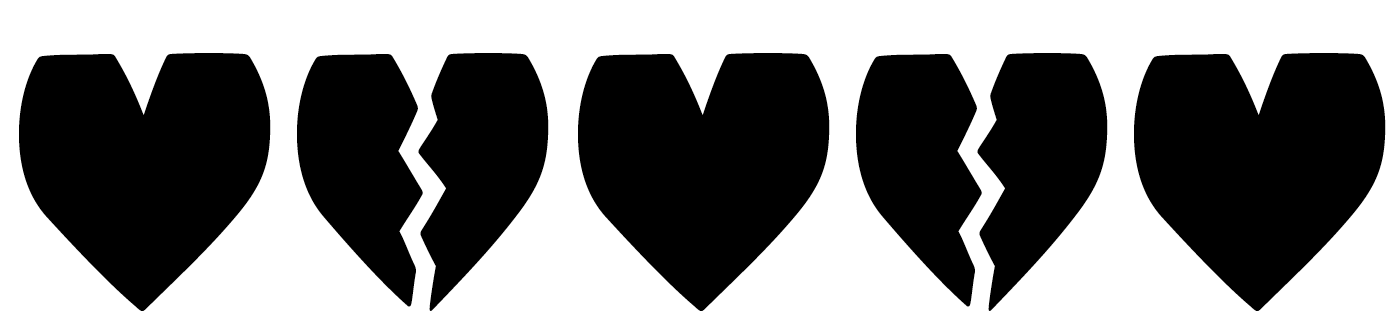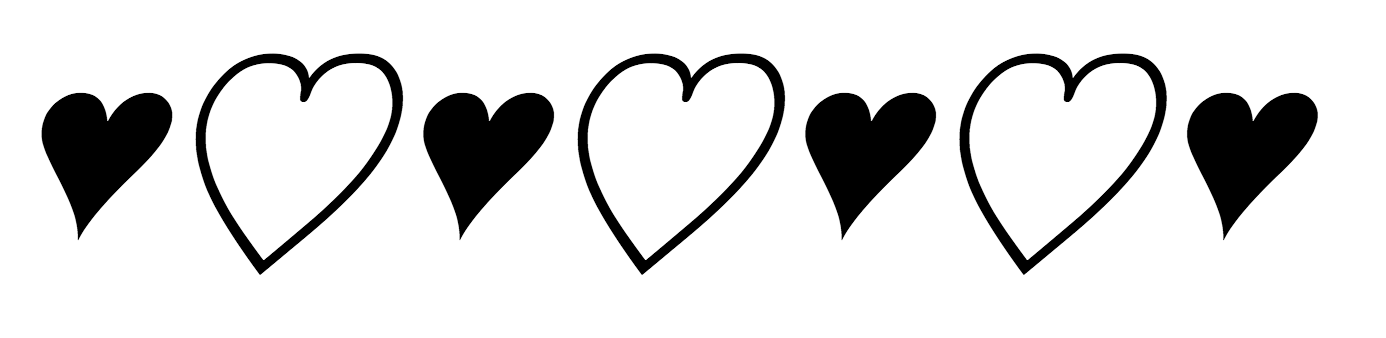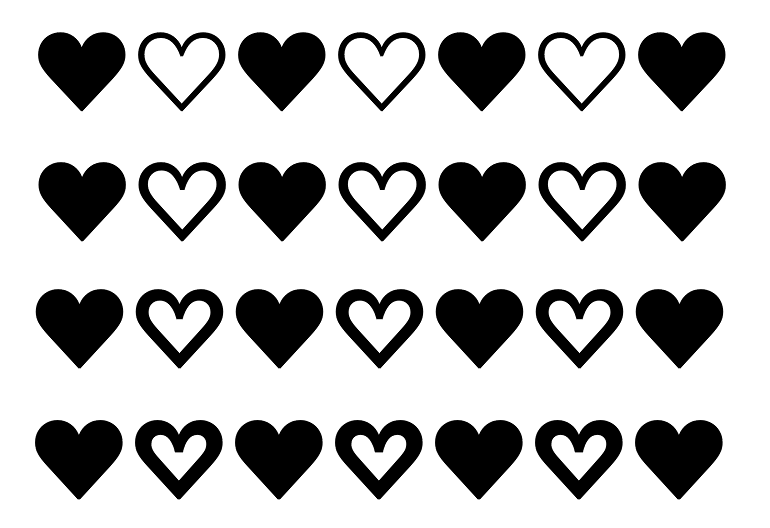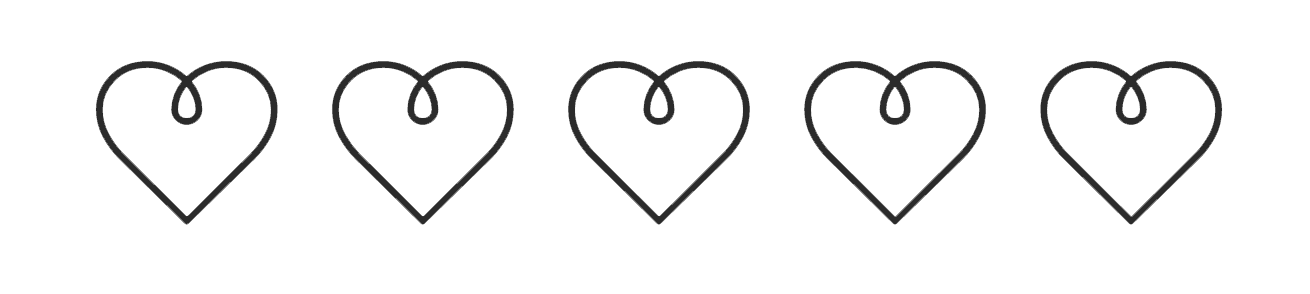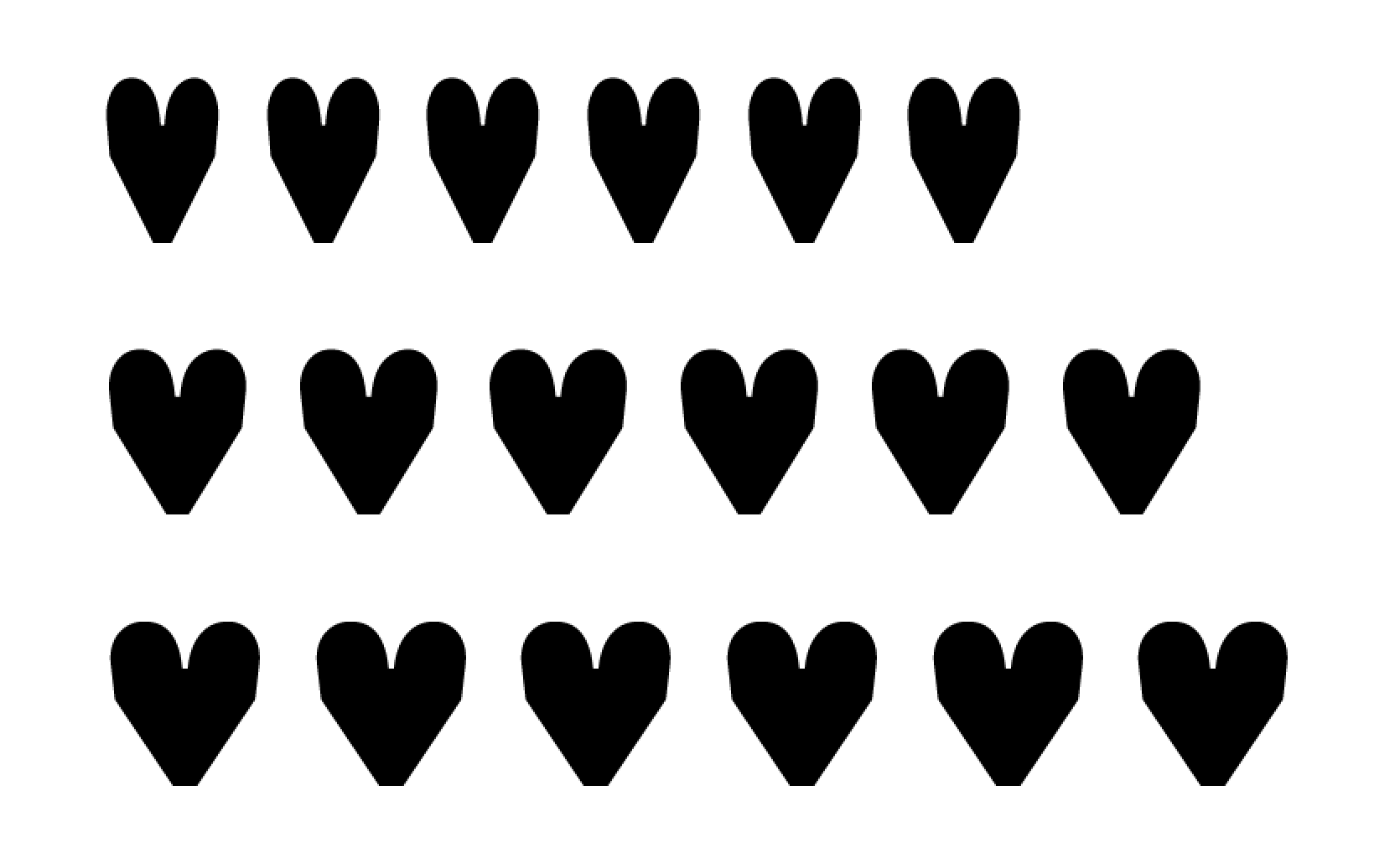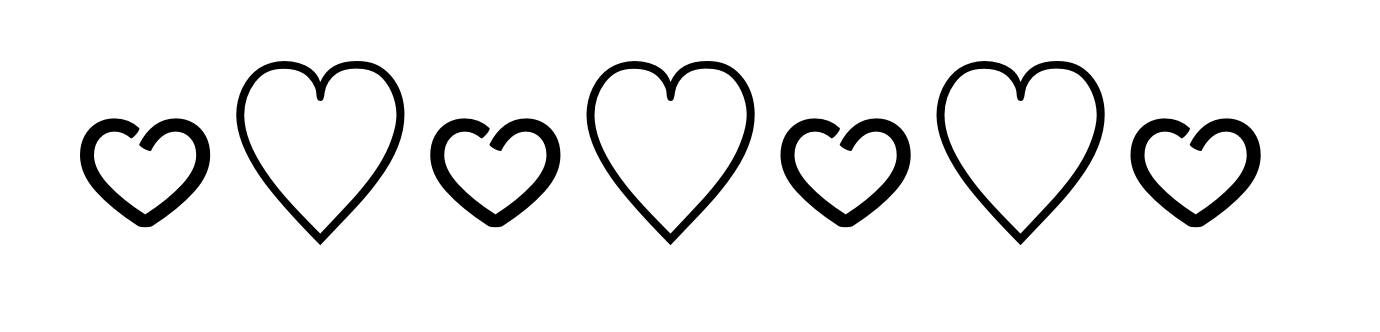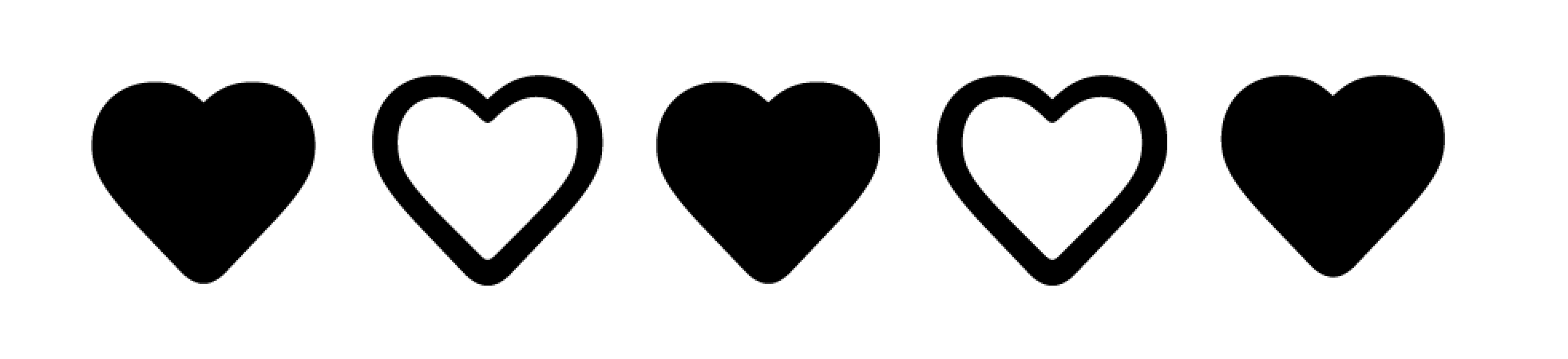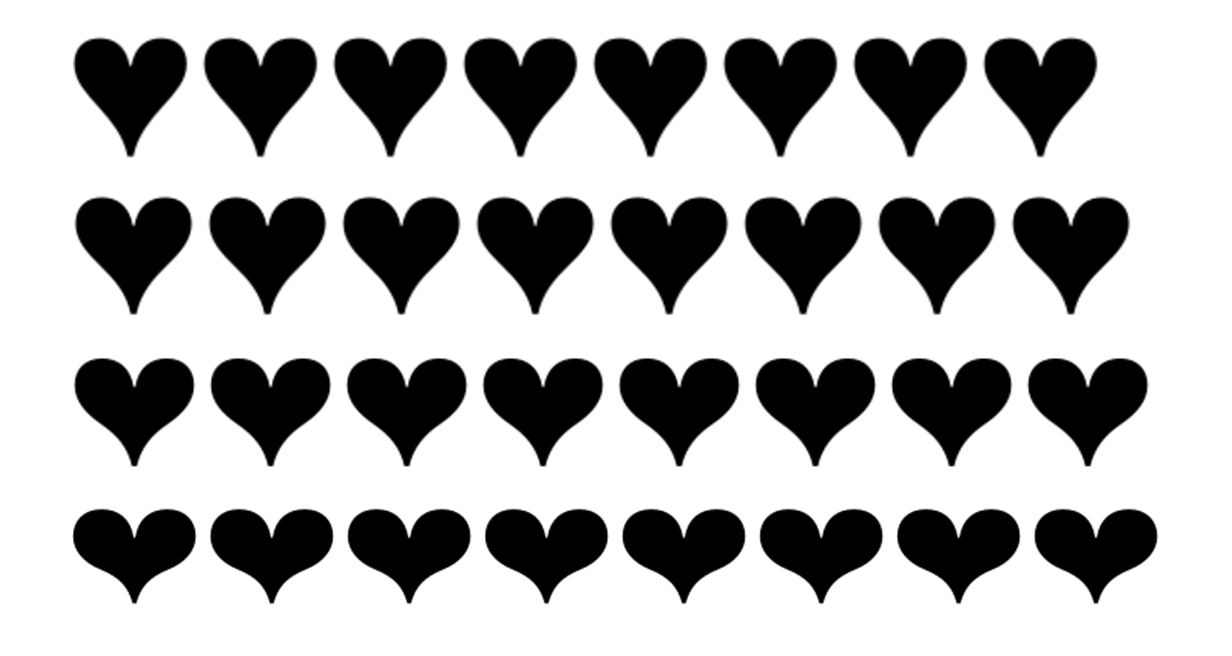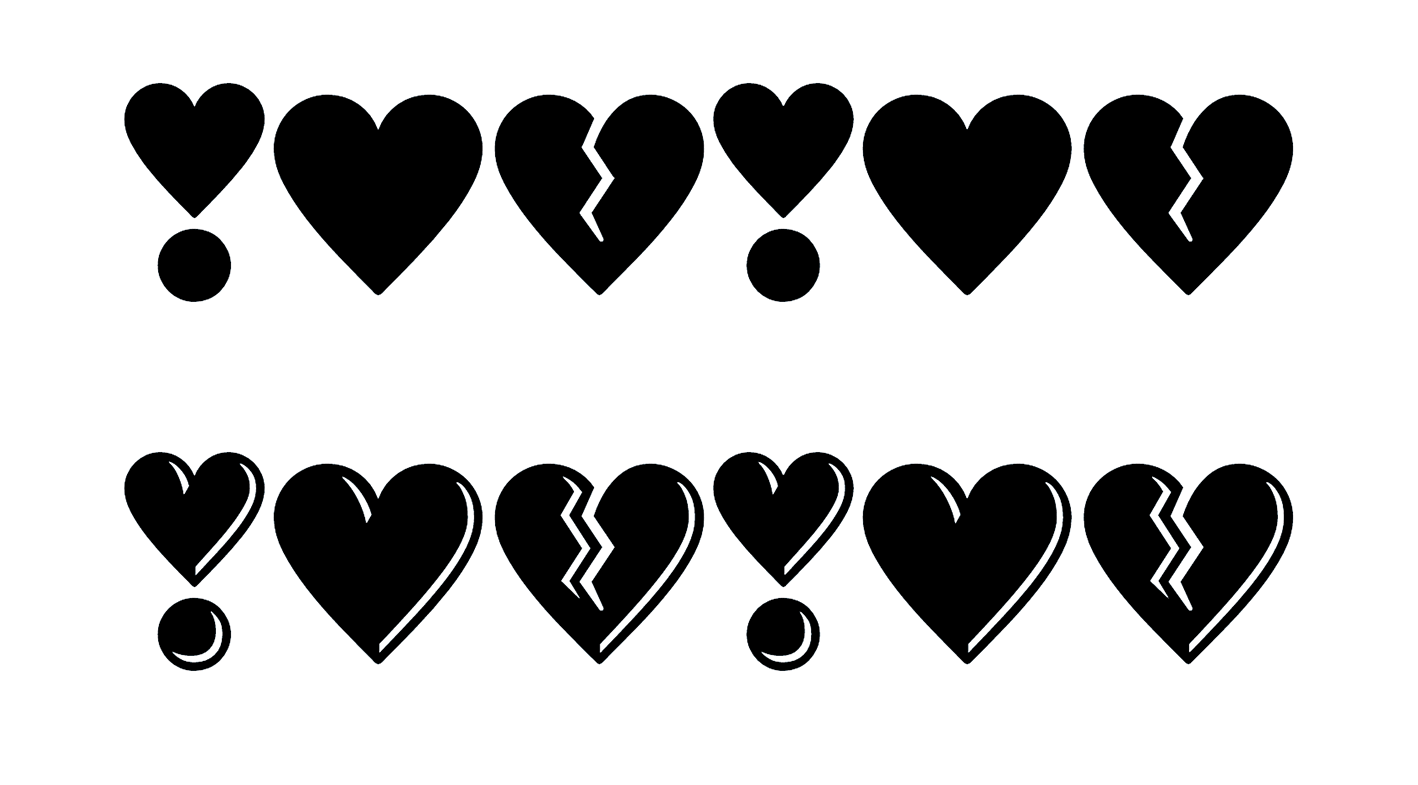
♥♡♥♡♥♡♥
In an attempt to distract myself from stress-watching CNN or eating an entire bag of cough drops (they’re candy-ish), I’m spending this Valentine’s Day on the hunt for typefaces with interesting ♥ or ♡. Here’s what I’ve found so far (with a little help from some friends):
Bickham Script by Richard Lipton: ♥ and ♡ are sort of, um, oblique.
Bickham Script hearts
Cera Pro by Jakob Runge: ♡ grows a thicker outline with the font weight.
Cera Pro hearts
Franziska also by Jakob Runge: Nice ♥ and ♡.
Franziska hearts
Guapa by Laura Meseguer: a curly-centered ♡.
Guapa hearts
Regina (Black and Hilite) by Charles & Thorn: Custom ❤️, 💔 and ❣ (Thanks for the tip, Kenneth!)
Regina hearts
Quixo by Frank Grießhammer: ♥ grows wider with the font weight.
Quixo hearts
*** NEW ADDITIONS *** (keep the suggestions coming!)
Input by David Jonathan Ross: this straight-edged heart (very emo) includes varying widths (compressed, narrow, and bold shown here):
Input hearts
Kinetic by Noel Pretorius and María Ramos: Love that not-quite closed ♥.
Kinetic font hearts
Portada Icons by José Scaglione & Veronika Burian: round and full.
portada icons hearts
Gautreaux by Victoria Rushton: swooning over these.
Export Stencil by Jesse Ragan: flat top heart and broken heart.
Listen, I get that the need for ♥ and ♡ is greatly diminished thanks to the flashy strongholds of 😍💌💞💓💗💖💘💝💟💜💛💚💙 oh, and of course, 😻. For today at least, let’s enjoy the humble ♥, ♡ and the typefaces that honor them.
And type designers! Think about giving some love to ♥ and ♡ in your next release. Because ♥♡♥♡♥♡♥ is a lot nicer than ������� when searching for type.